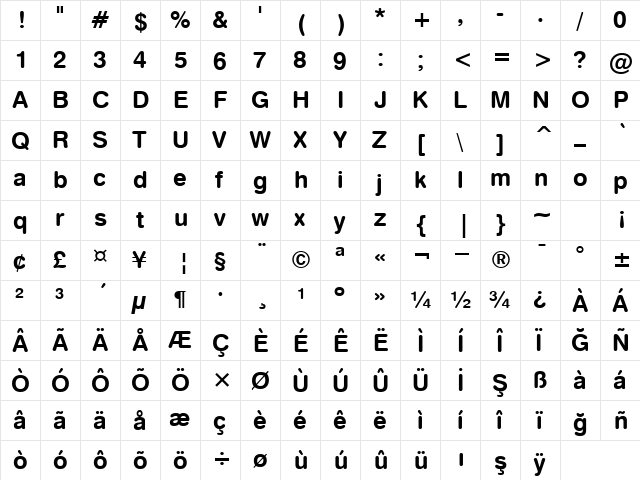
00786 Regular Font Preview
00786 Regular
Design Context for 00786 Typeface
00786 offers clean, dependable letterforms without strong stylistic allegiance, making it a practical choice for designers who need flexibility.